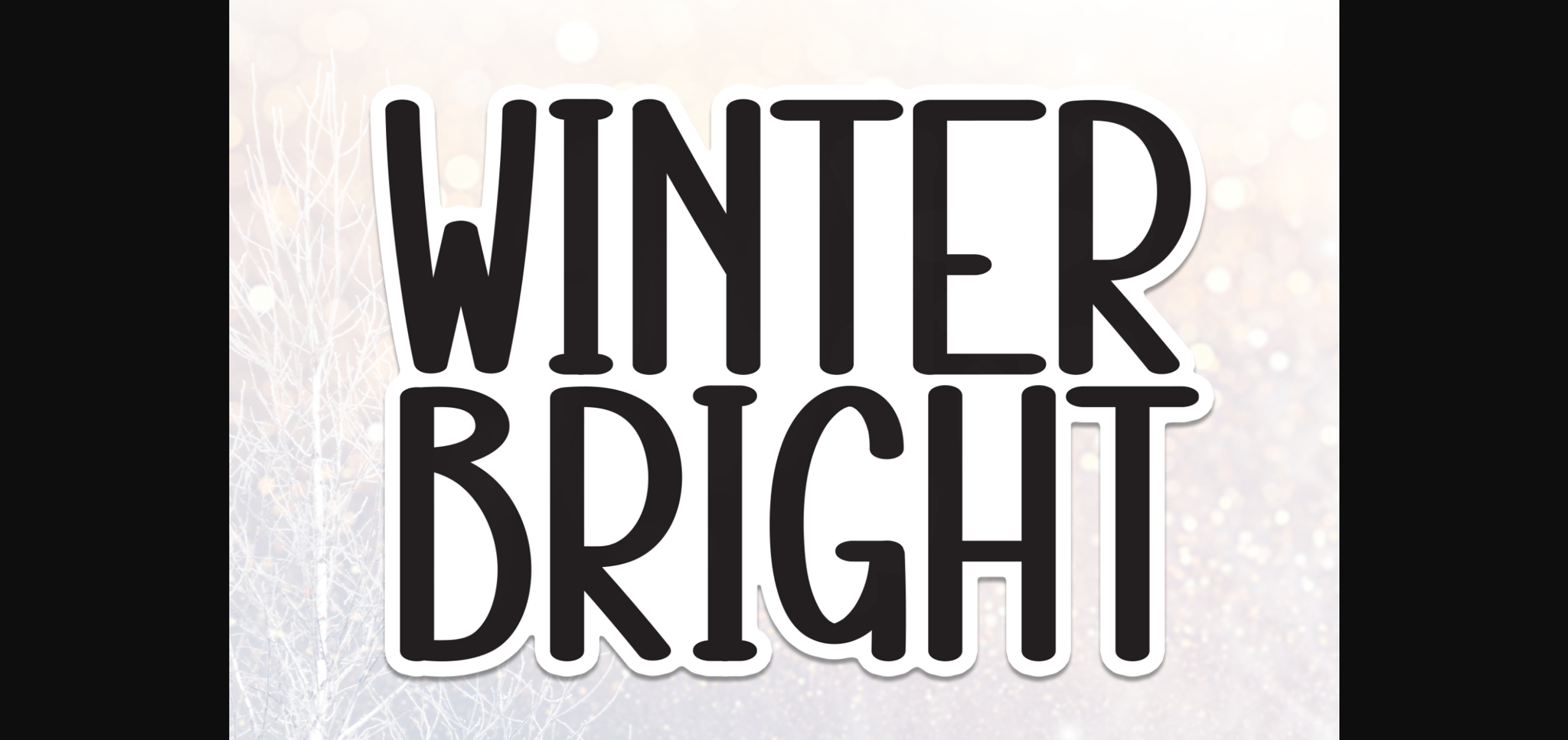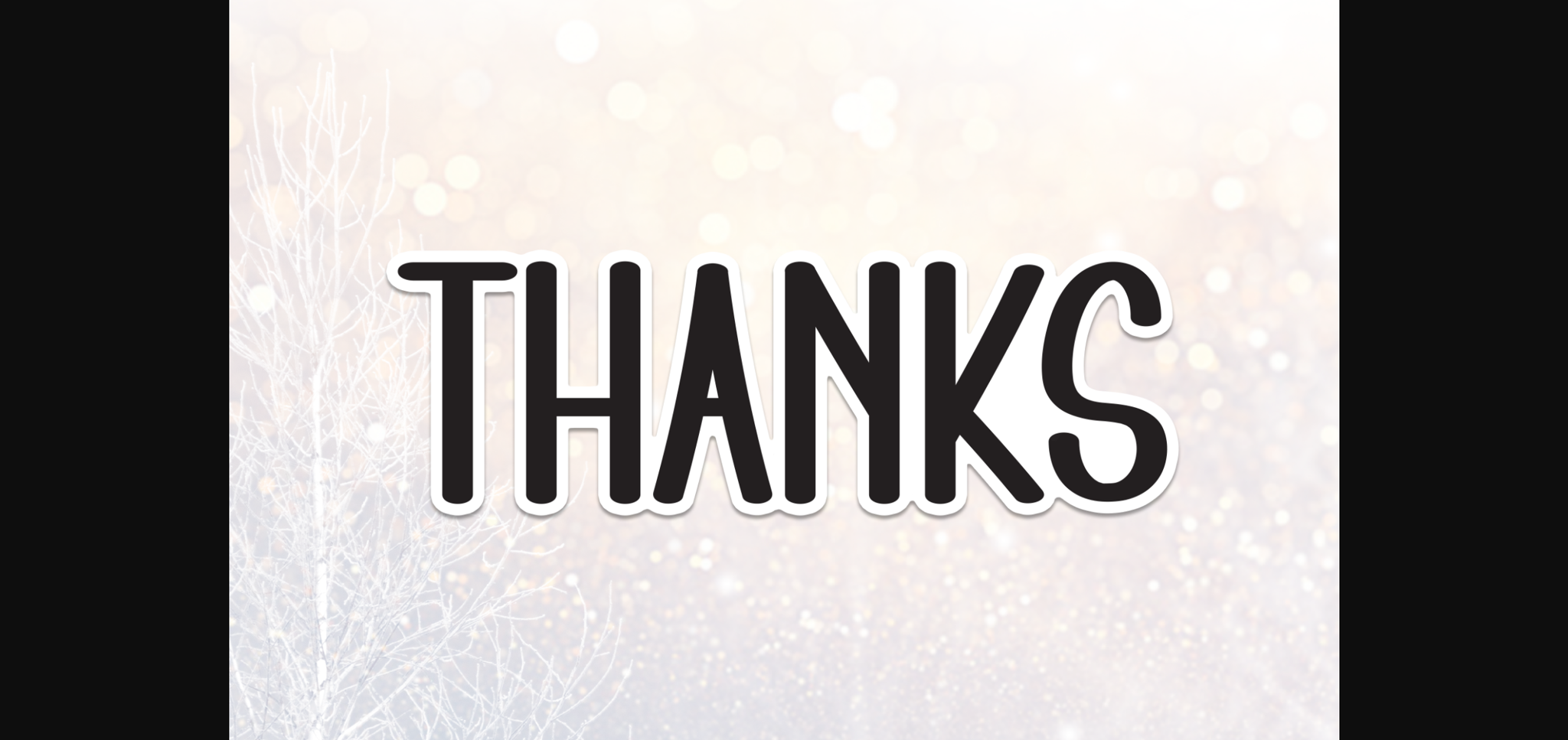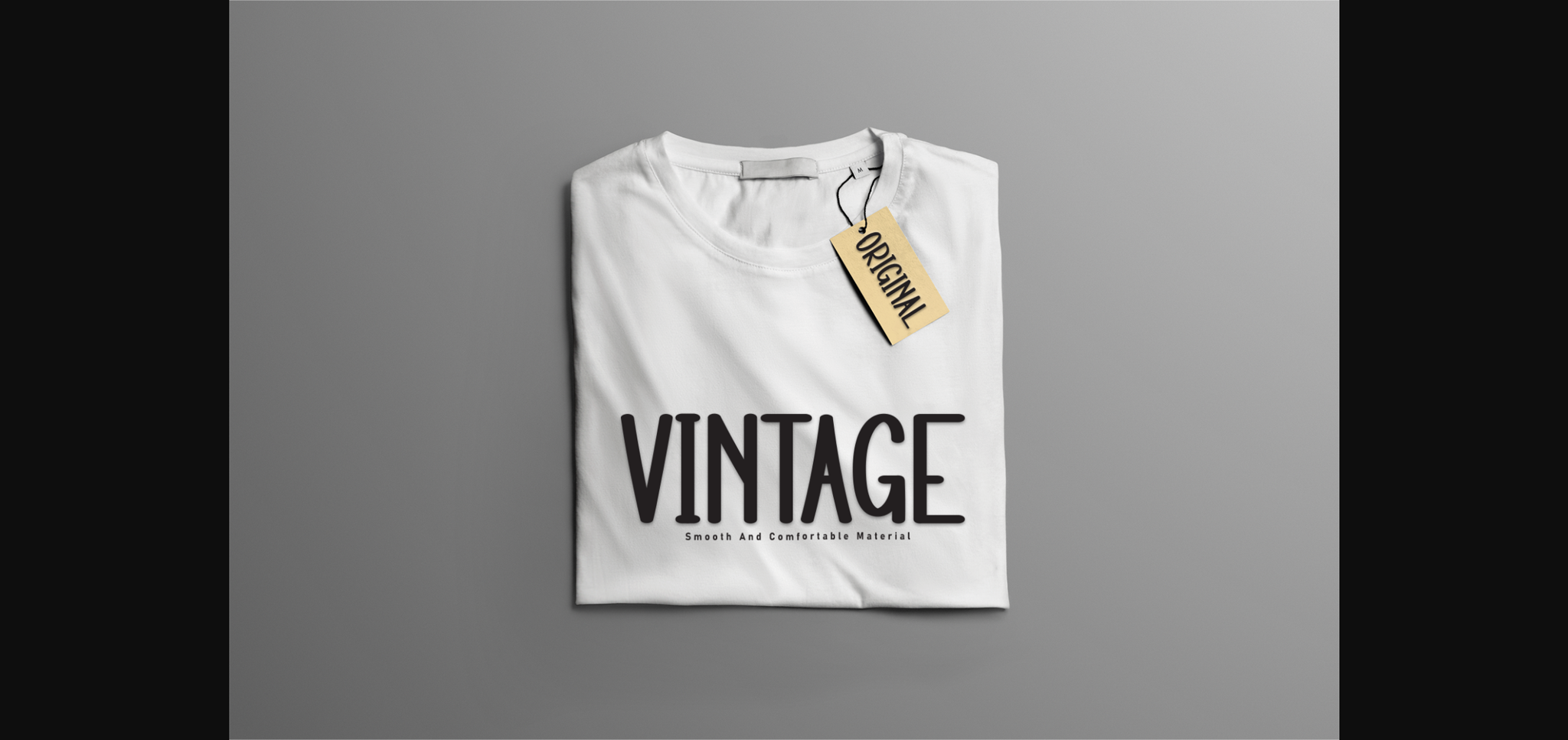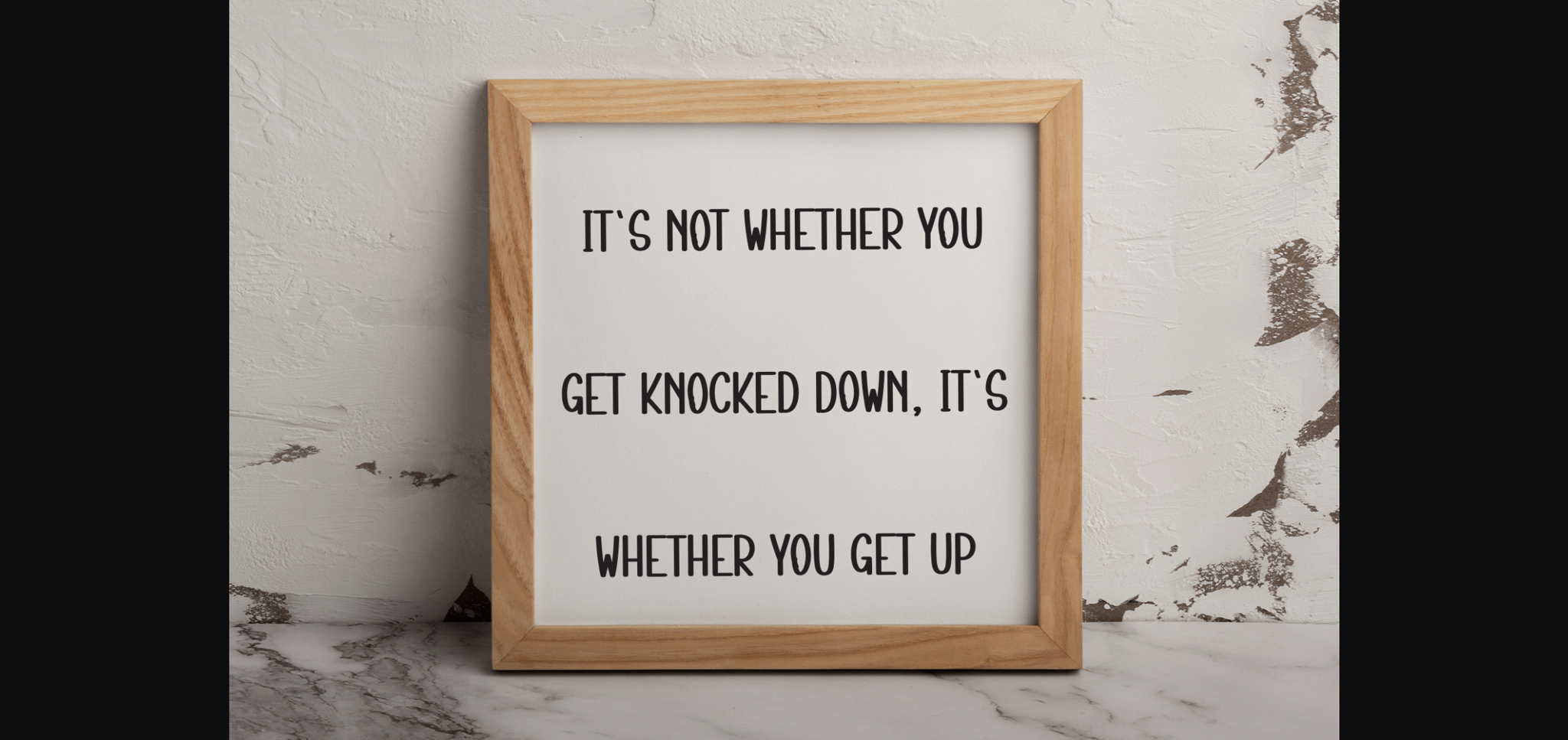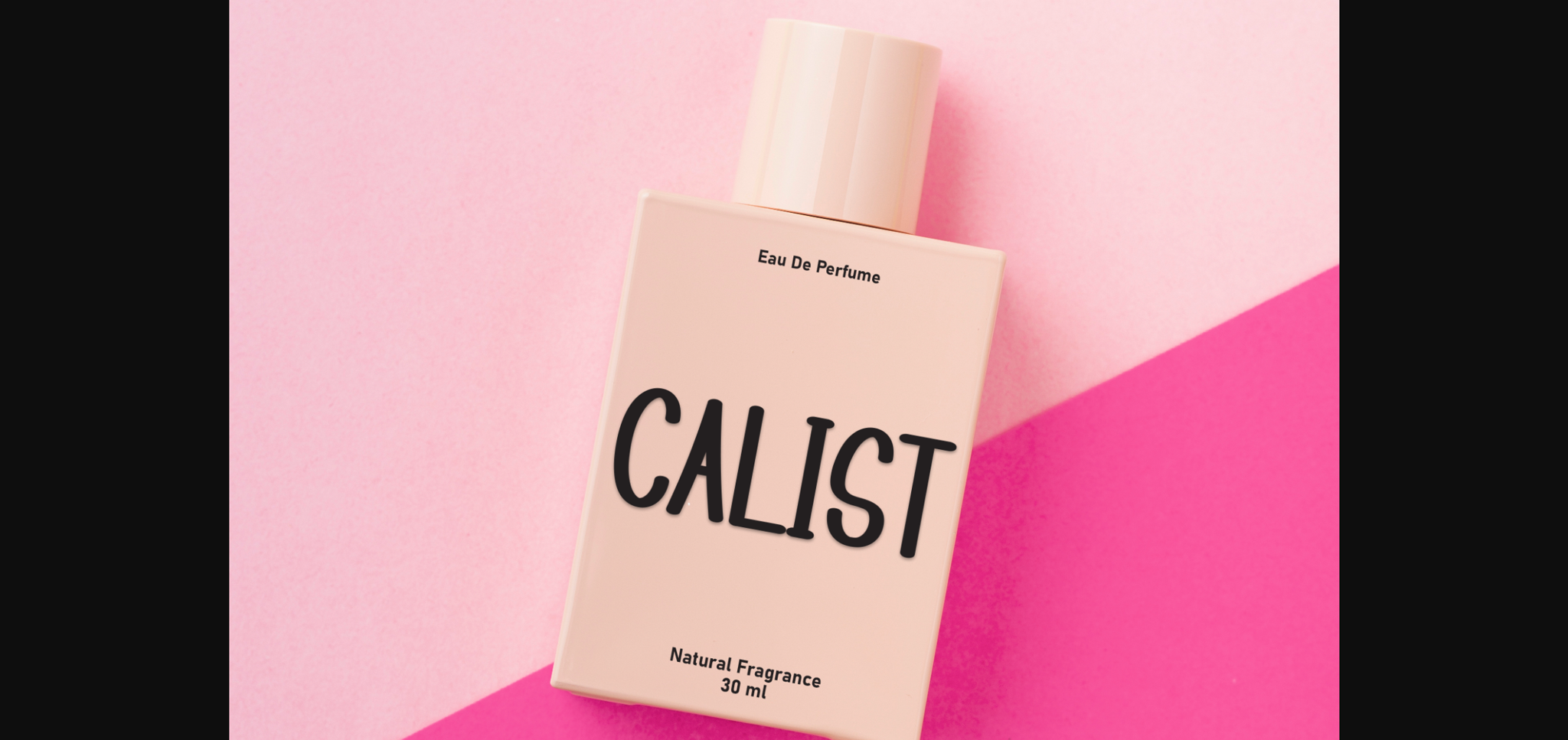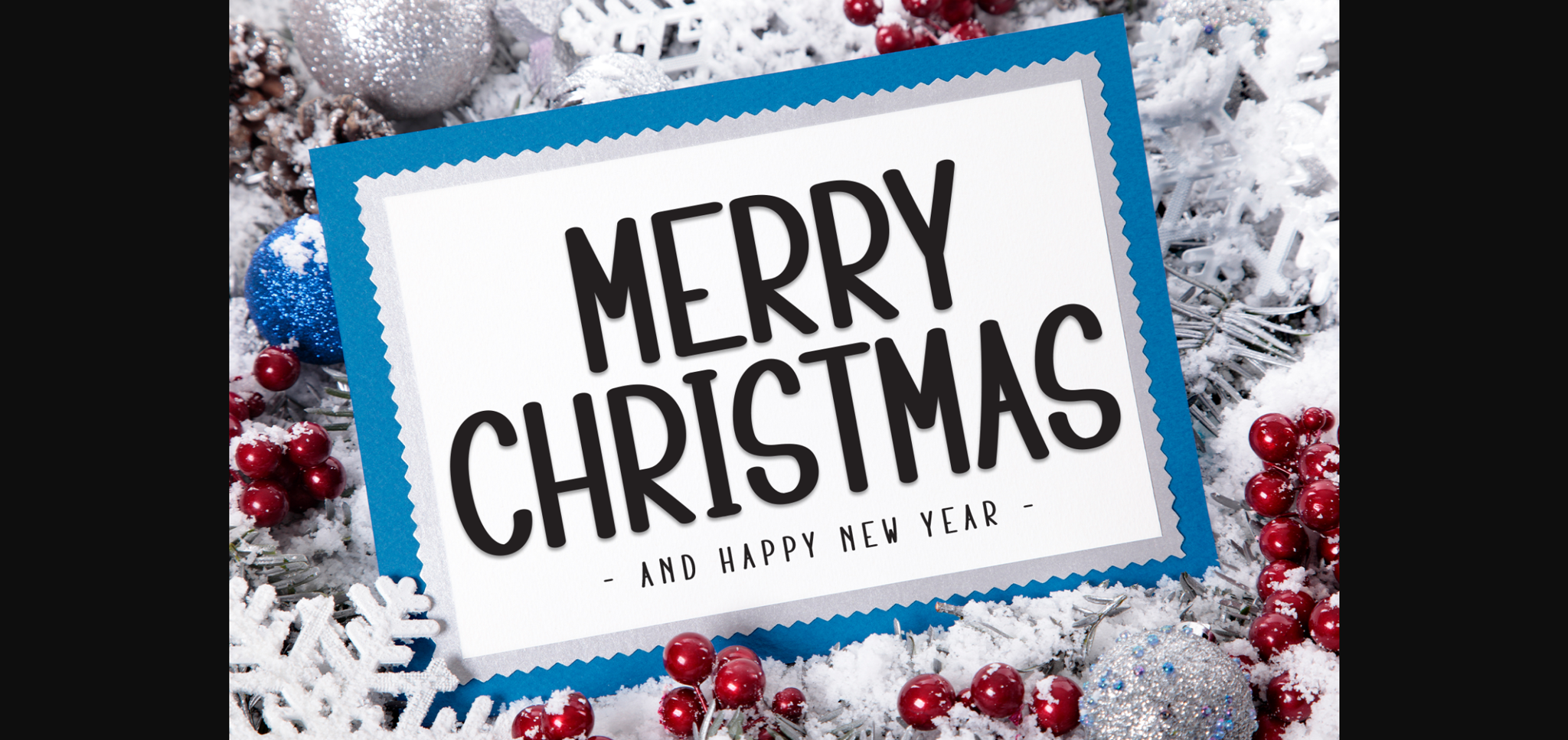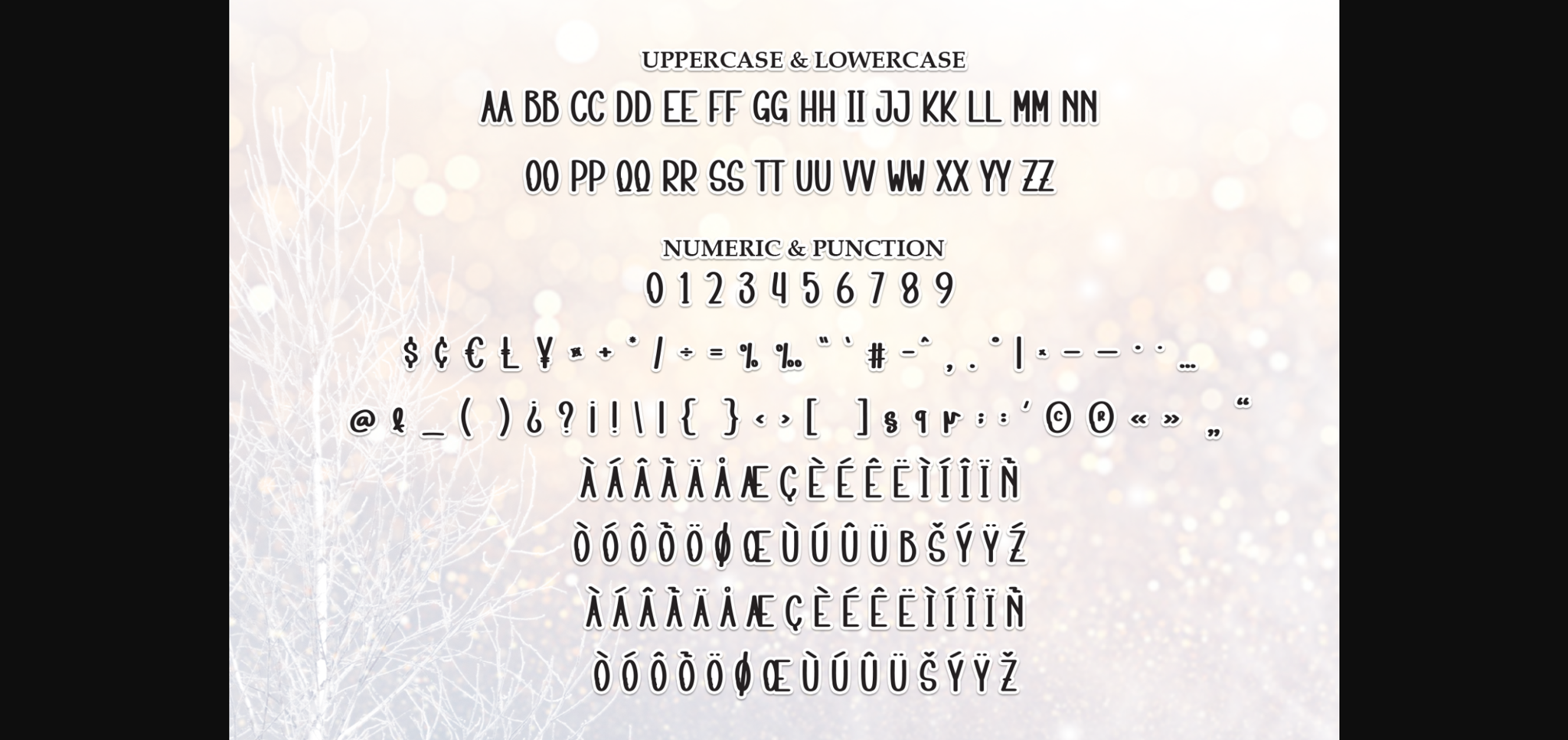
HomeSans Serif FontsWinter Bright Font Sans Serif Fonts Winter Bright Font FacebookTwitterPinterestWhatsApp 1 of 10 ... Winter Bright Font Poster 2... Winter Bright Font Poster 3... Winter Bright Font Poster 4... Winter Bright Font Poster 5... Winter Bright Font Poster 6... Winter Bright Font Poster 7... Winter Bright Font Poster 8... Winter Bright Font Poster 9... Winter Bright Font Poster 10... About Winter Bright Font Winter Bright is a cool and modern sans serif font. Add it to your creative projects and enjoy the results! DOWNLOAD NOW 193 0 People also explored Fishing Font Infatuated Font Atlantic Time Font So Much Love Font Singtton Vintage Font Freeze Founding Father Font Happy Font Flamouse Font Daizen Font Badasyuh Font Talking Nice Font TagsWinter Bright Font Previous articleBeulacany FontNext articleSimple Vintage Font LEAVE A REPLY Cancel reply Comment: Please enter your comment! Name:* Please enter your name here Email:* You have entered an incorrect email address! Please enter your email address here Website: Save my name, email, and website in this browser for the next time I comment. Unlock Endless Creativity with the FREE September Clipart Huge Bundle (Valued at $700!) Personal Use Free Angista Script Personal Use Free Read more Better Together Duo Personal Use Free Read more Ryujin Attack Personal Use Free Read more Autines Personal Use Free Read more BLOG To increase your work productivity, choose the most readable fonts. In today's fast-paced work environment, where digital communication and information consumption are integral to our daily routines, the choice of fonts can significantly impact... Where to Buy American Fonts Online in 2024 Top 7 Google Fonts Alternatives for Faster and Privacy-Friendly Web Design (2025) Exploring Font Trends